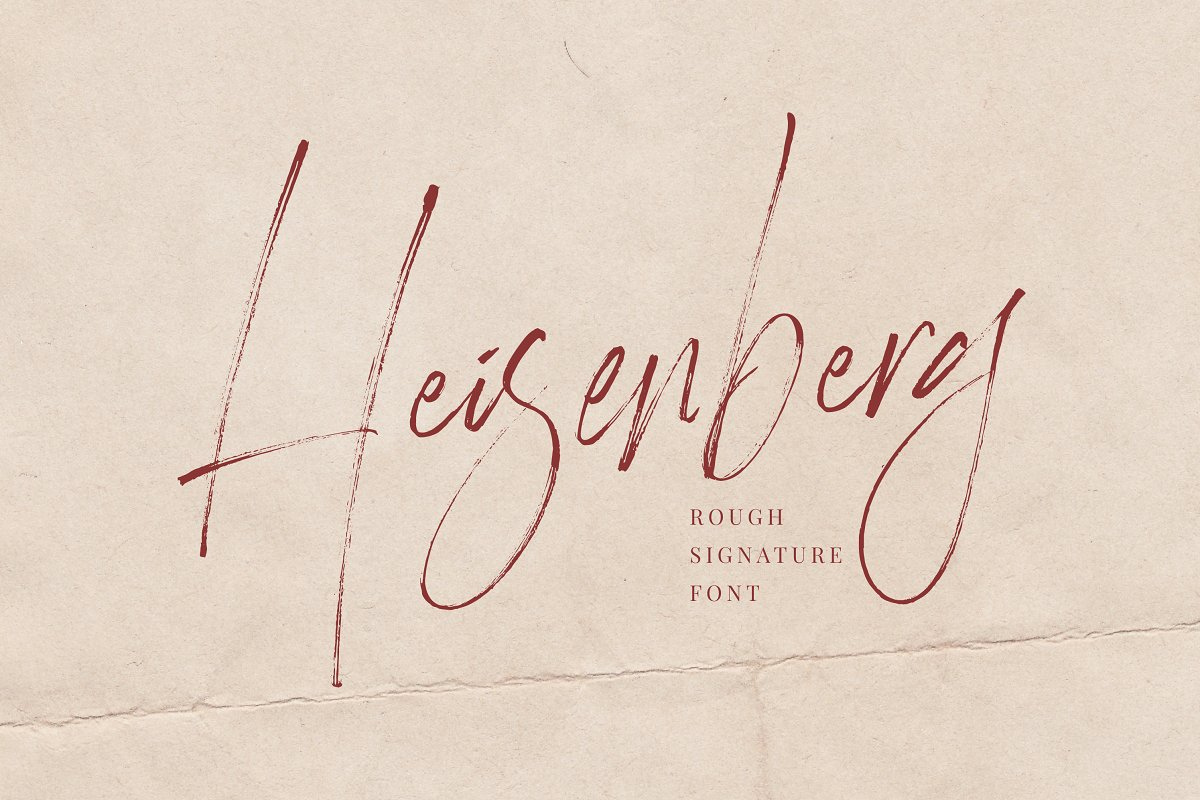
Heisenberg - Rough Signature Font
The Heisenberg - Rough Signature Font excels in various design applications including edgy brand logos, vintage poster designs, distressed signage, rock band merchandise, tattoo lettering, grunge-style graphics, urban street art, bold headlines, rebellious product packaging, and alternative music album covers. Its rough, weathered aesthetic makes it perfect for projects requiring an authentic, raw signature style that conveys strength and unconventional character.
What makes the Heisenberg - Rough Signature Font genuinely exciting is its distinctive distressed texture that simulates aged ink on rough paper surfaces. The font features irregular edges, ink bleeds, and organic imperfections that create an authentic vintage signature appearance. Each letterform displays deliberate roughness and character variations that suggest years of wear and handling, giving designs an immediate sense of history and authenticity that polished fonts simply cannot achieve.
The Heisenberg - Rough Signature Font family typically includes regular weight with comprehensive character sets, featuring uppercase and lowercase letters, numbers, punctuation, and special symbols. The typeface often incorporates multiple stylistic alternates, contextual ligatures, and decorative elements that enhance its rough, handcrafted appeal. These variations allow designers to create more natural-looking distressed text by providing different levels of weathering and texture throughout their compositions.
This powerful signature font captivates audiences through its bold, unapologetic character that demands attention. Unlike clean, pristine fonts, Heisenberg - Rough Signature Font embraces imperfection as a design strength, creating visual interest through its deliberately damaged appearance. The font's aggressive personality makes it ideal for brands and projects that want to convey rebellion, authenticity, and non-conformist attitudes while maintaining excellent readability.
The Heisenberg - Rough Signature Font offers designers an exceptional opportunity to incorporate gritty, authentic character into their creative work. From underground music projects to vintage-inspired branding, this font delivers the raw, weathered aesthetic that resonates with audiences seeking genuine, unpolished design elements. Its distinctive rough texture ensures your projects stand out with memorable personality and rebellious spirit.